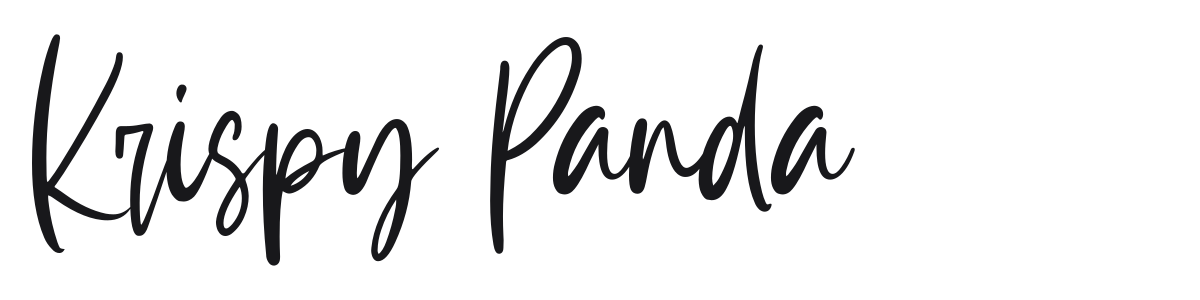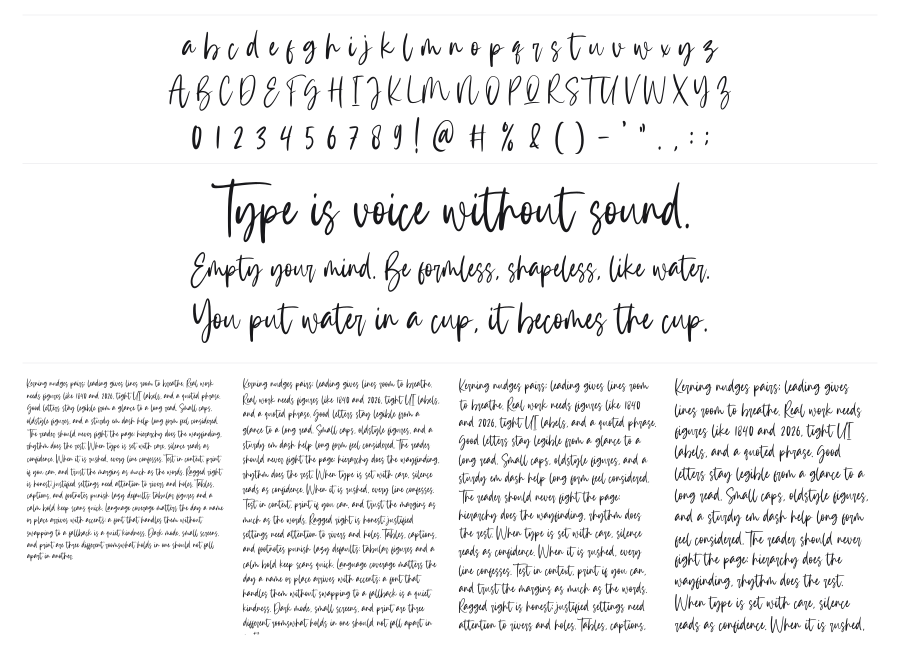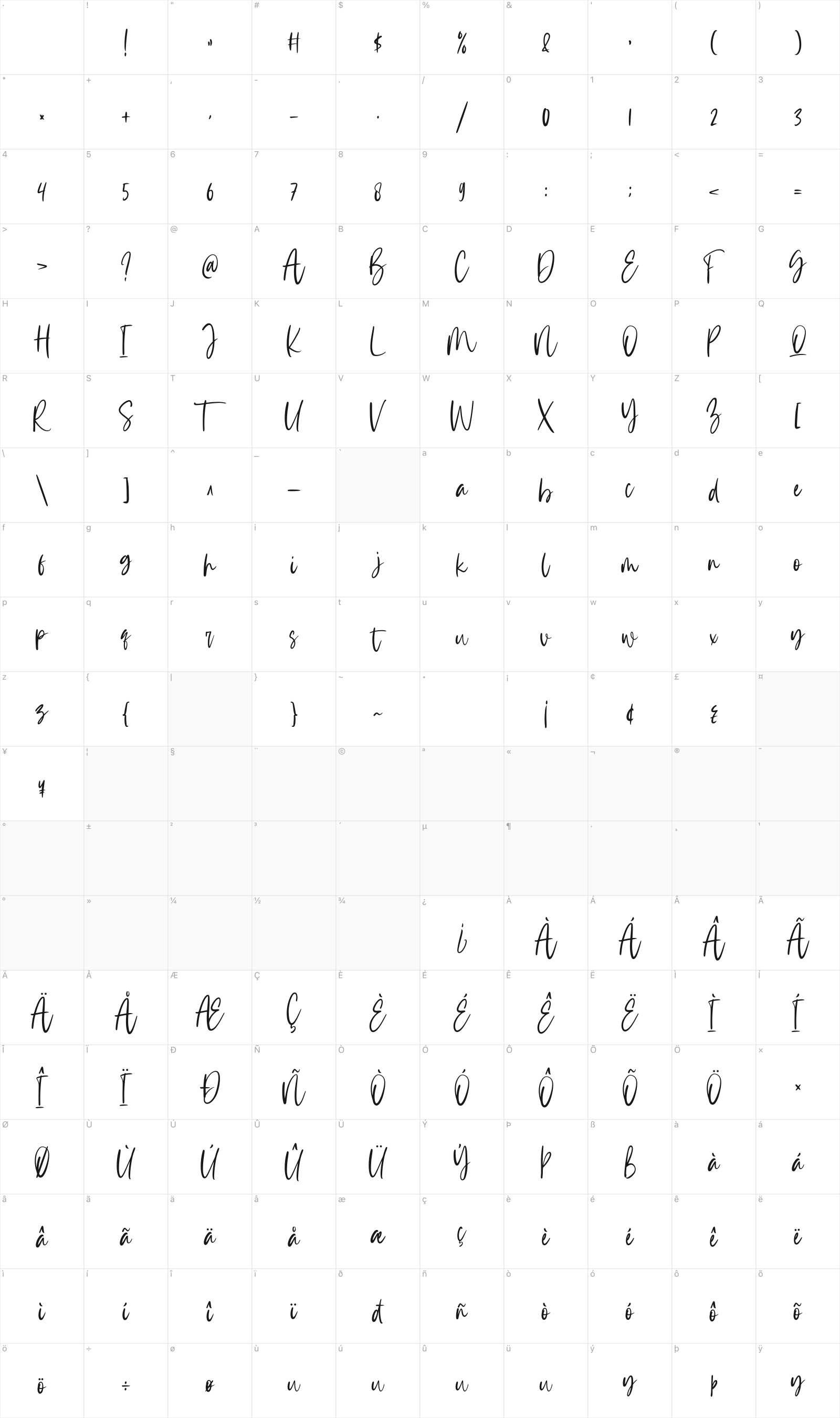
Krispy Panda
Krispy Panda is a lively hand-lettered casual script with a bouncing baseline and expressive, looping strokes. High contrast between thick and thin strokes gives it the energy of a skilled brush pen without feeling stiff or formal. It works well wherever warmth and personality are the point: packaging, logos, social graphics, event materials.